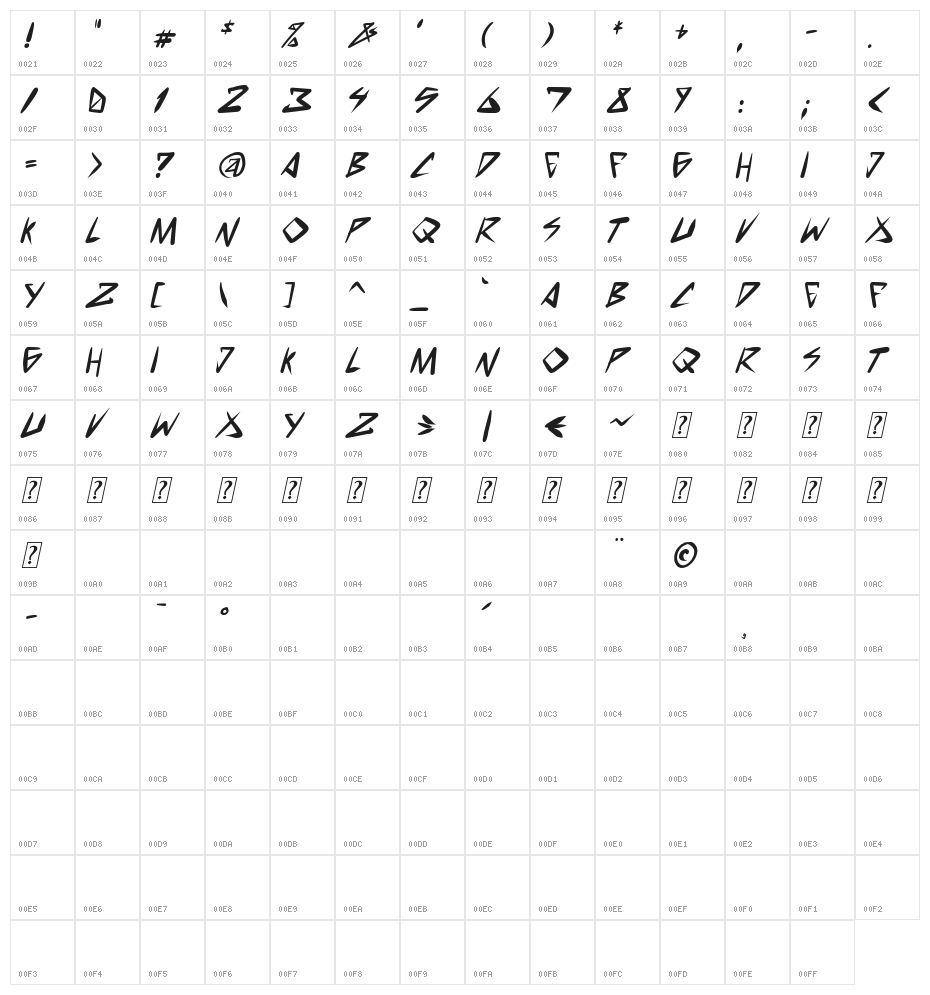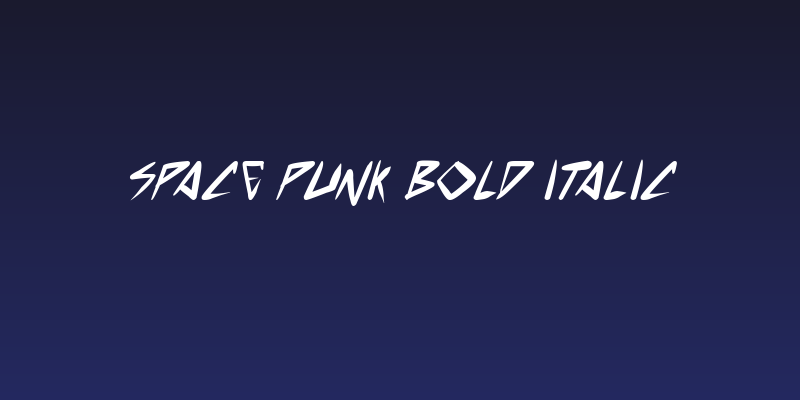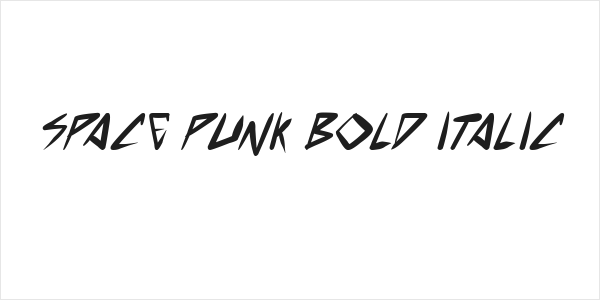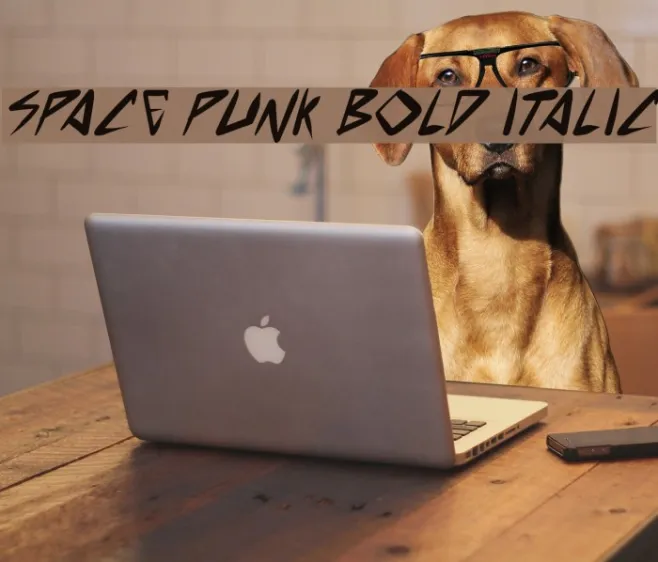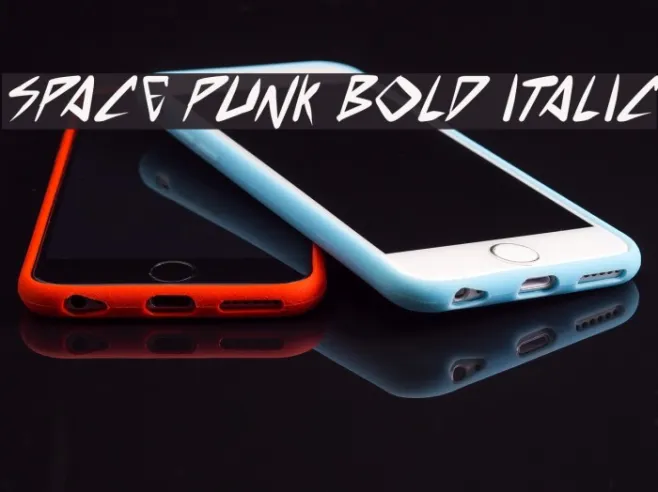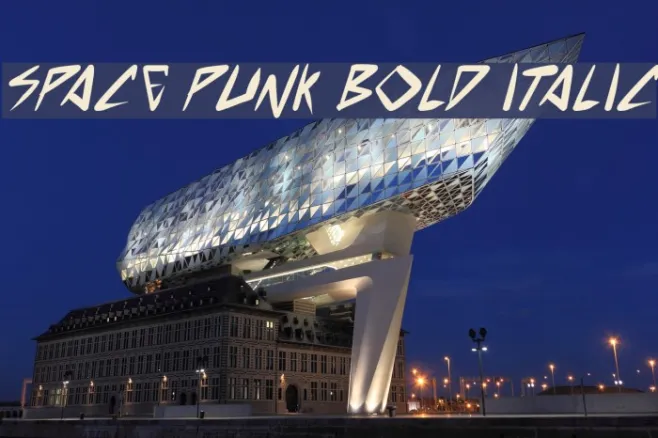
space punk Bold Italic Font
space punk Bold Italic Description
This font exudes a dynamic and futuristic vibe with its sharp, angular lines and bold presence. The characters are designed with a forward-leaning slant, giving a sense of motion and urgency. The uppercase and lowercase letters maintain a consistent style, with exaggerated points and edges that create a striking visual impact. Numbers and special characters follow the same aesthetic, ensuring uniformity across all text elements. The font's bold weight and italic style enhance its dramatic appearance, making it ideal for projects that require a strong, modern statement.
| Overall Style | Futuristic, Dynamic |
| Proposed Projects | Ideal for sci-fi themed designs, video game titles, movie posters, and branding for tech companies. |